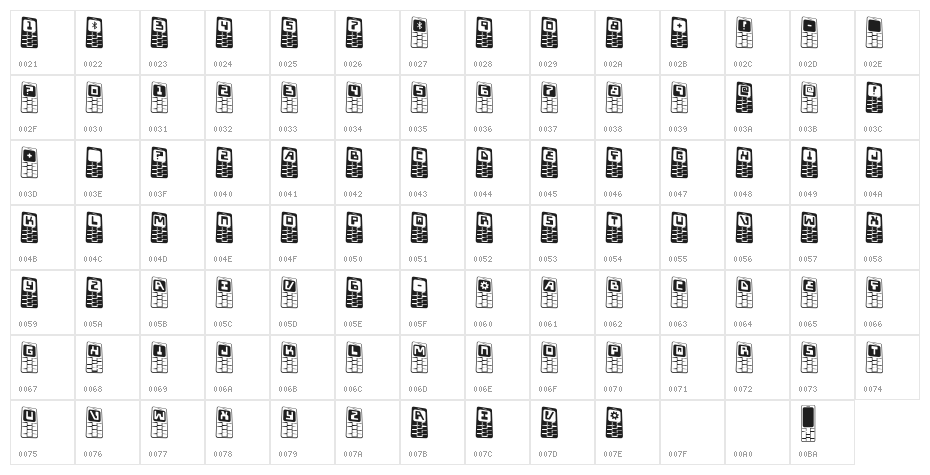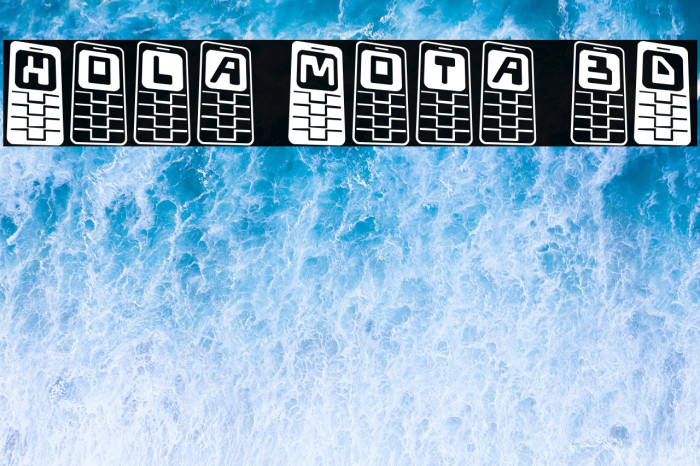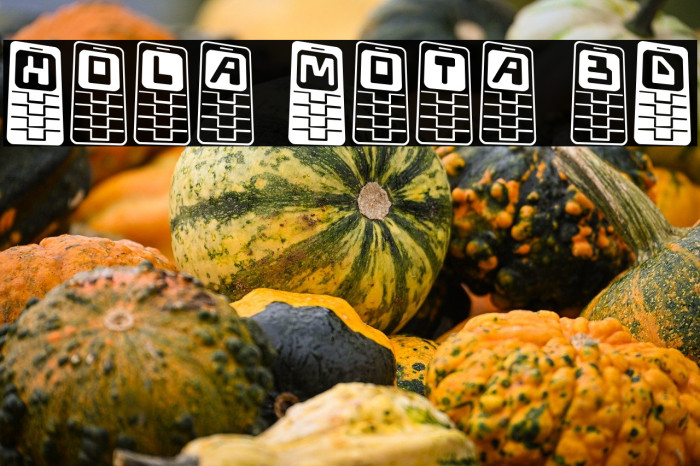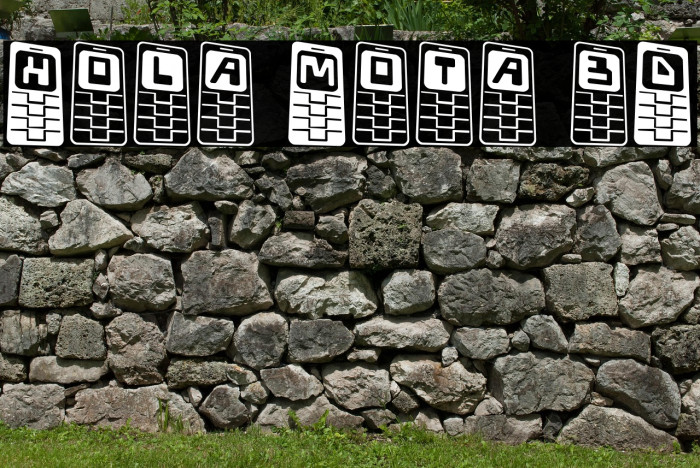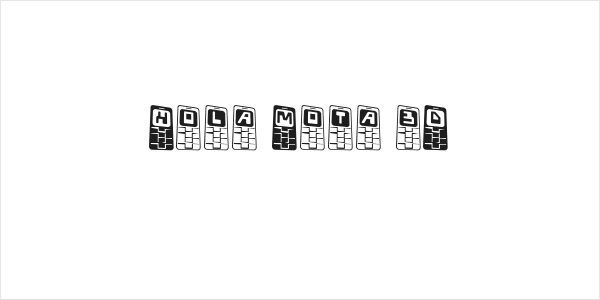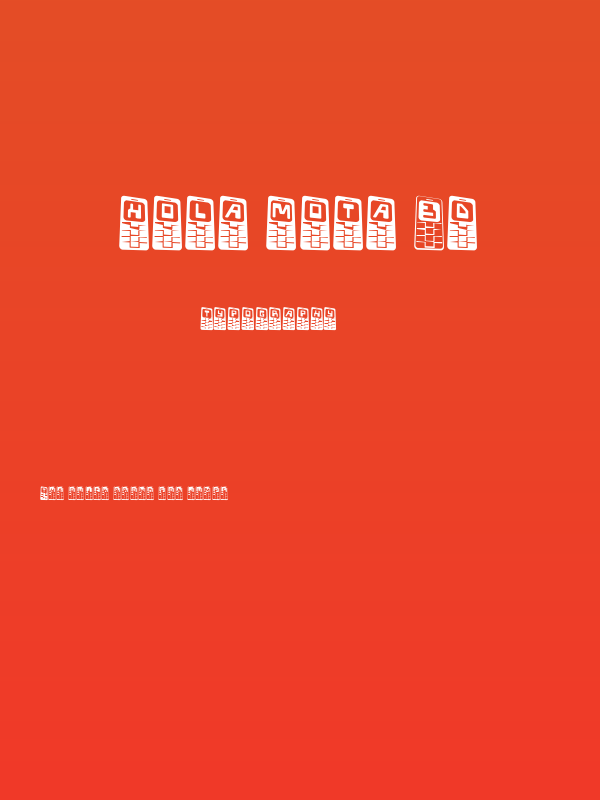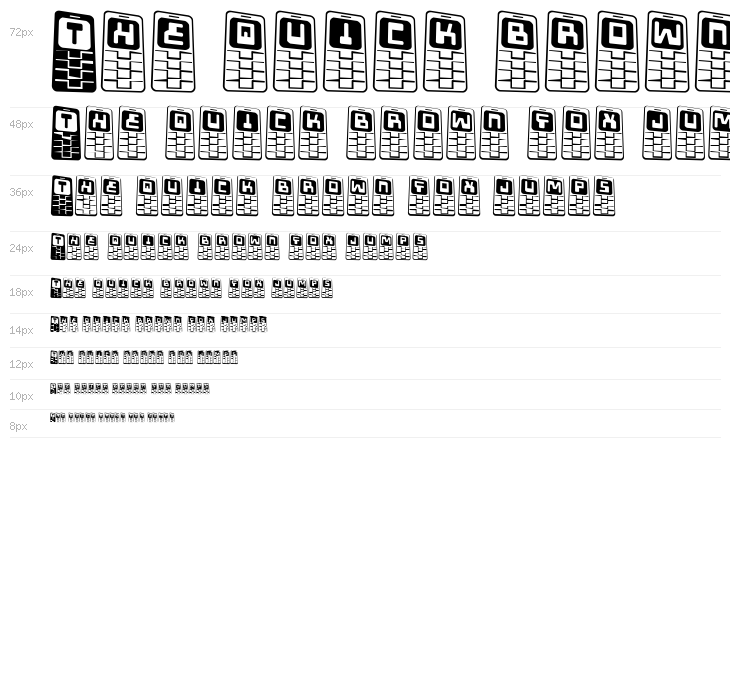
Hola Mota 3D Font
Hola Mota 3D Description
This font features a bold, three-dimensional design with a distinct blocky appearance. Each character is enclosed within a rectangular shape, giving it a unique, futuristic look. The letters and numbers are stylized with a shadow effect that enhances the 3D illusion, making them stand out prominently. The font has a playful and modern aesthetic, suitable for creative and eye-catching designs. Its geometric structure and strong presence make it ideal for projects that require a bold statement.